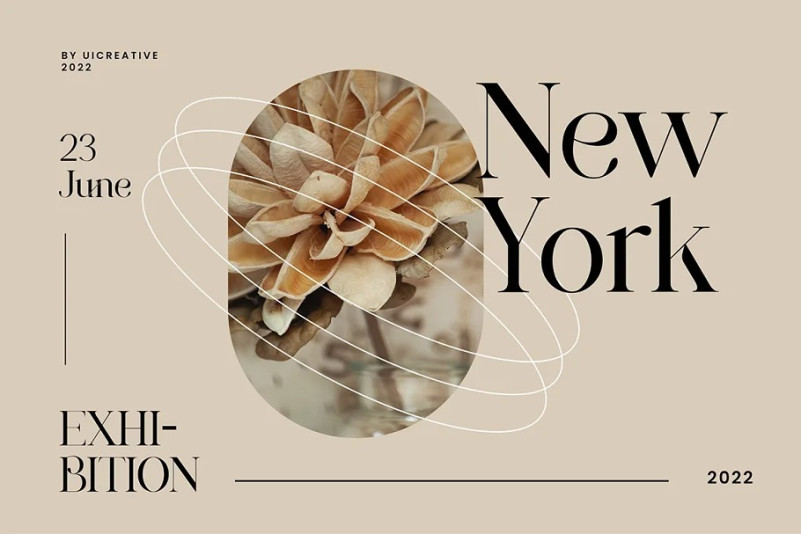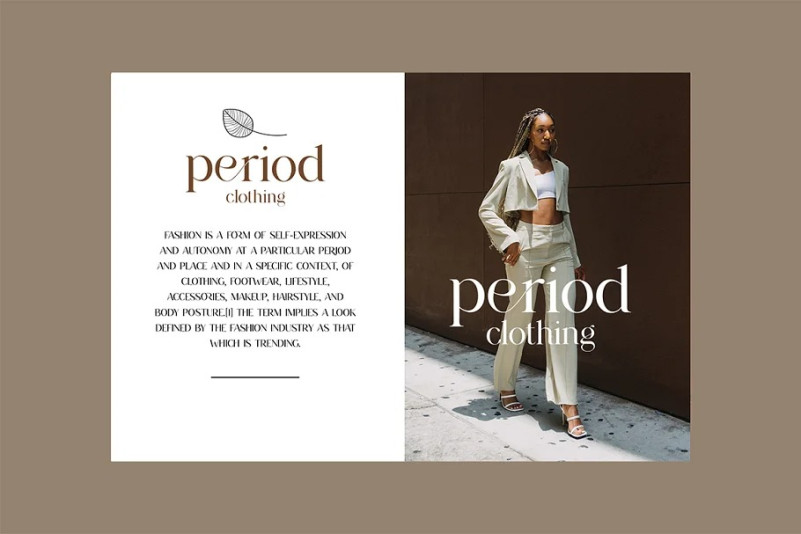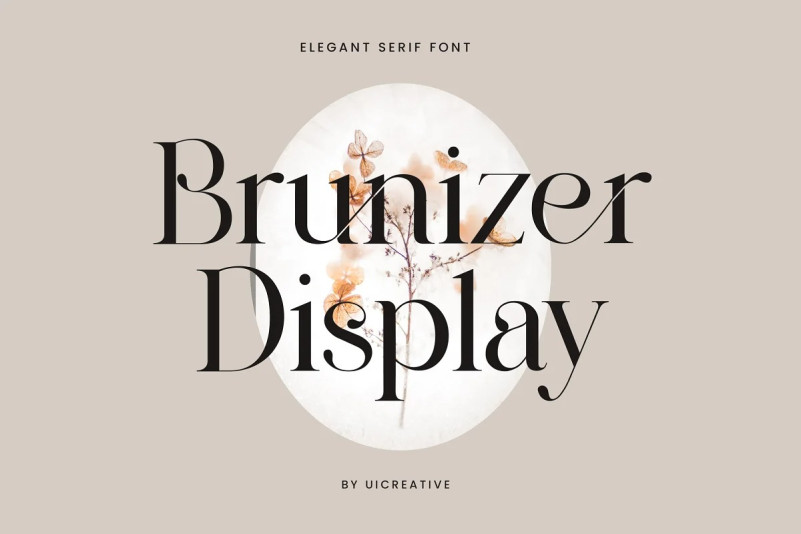
Brunizer Font
Brunizer Font – Display Serif Font. Modern Display Serif font that feels beautiful classy, elegant, and modern. This font is ideally suited for a wide variety of projects, such as signature, stationery, logo, wedding, typography quotes, magazine or book covers, website headers, clothing, branding, packaging design, and more. Also, fashion-related branding or editorial design displays both masculine and feminine qualities.